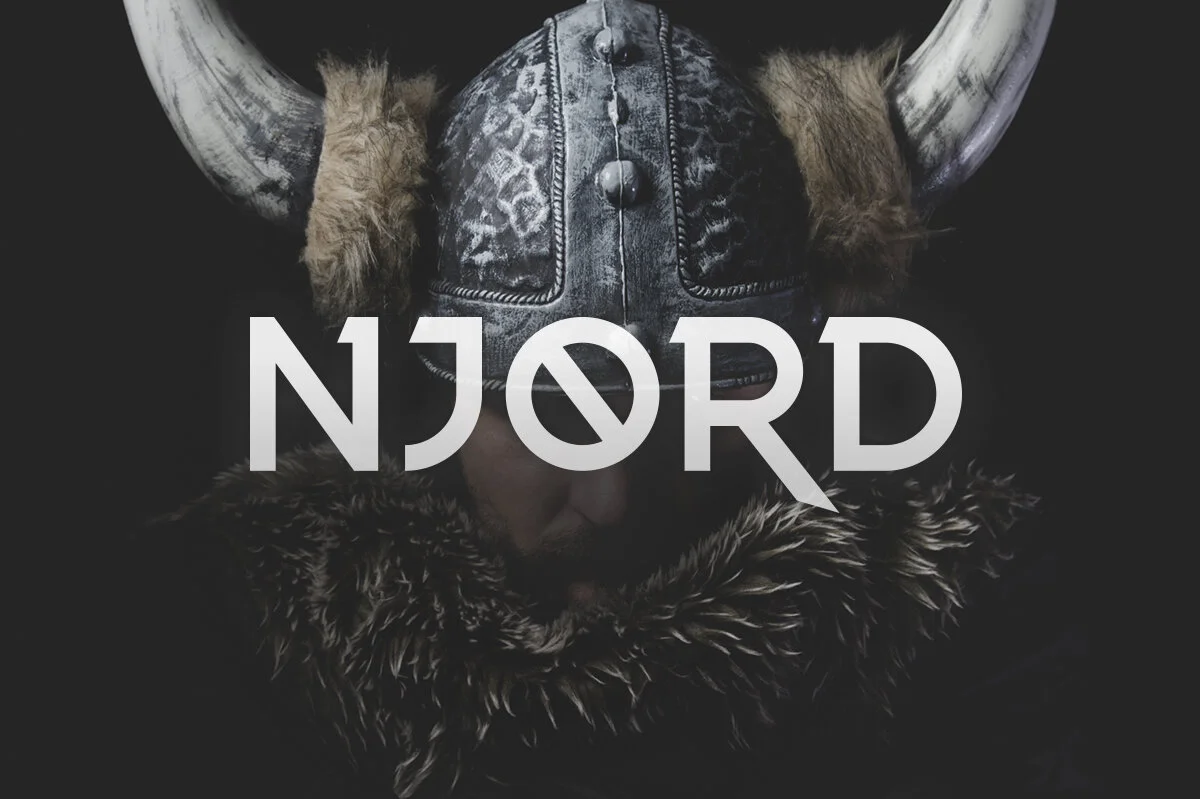
Njord is a viking inspired typeface that works great with both wide and narrow spacing. It comes with an alternate style with more distinct characters.